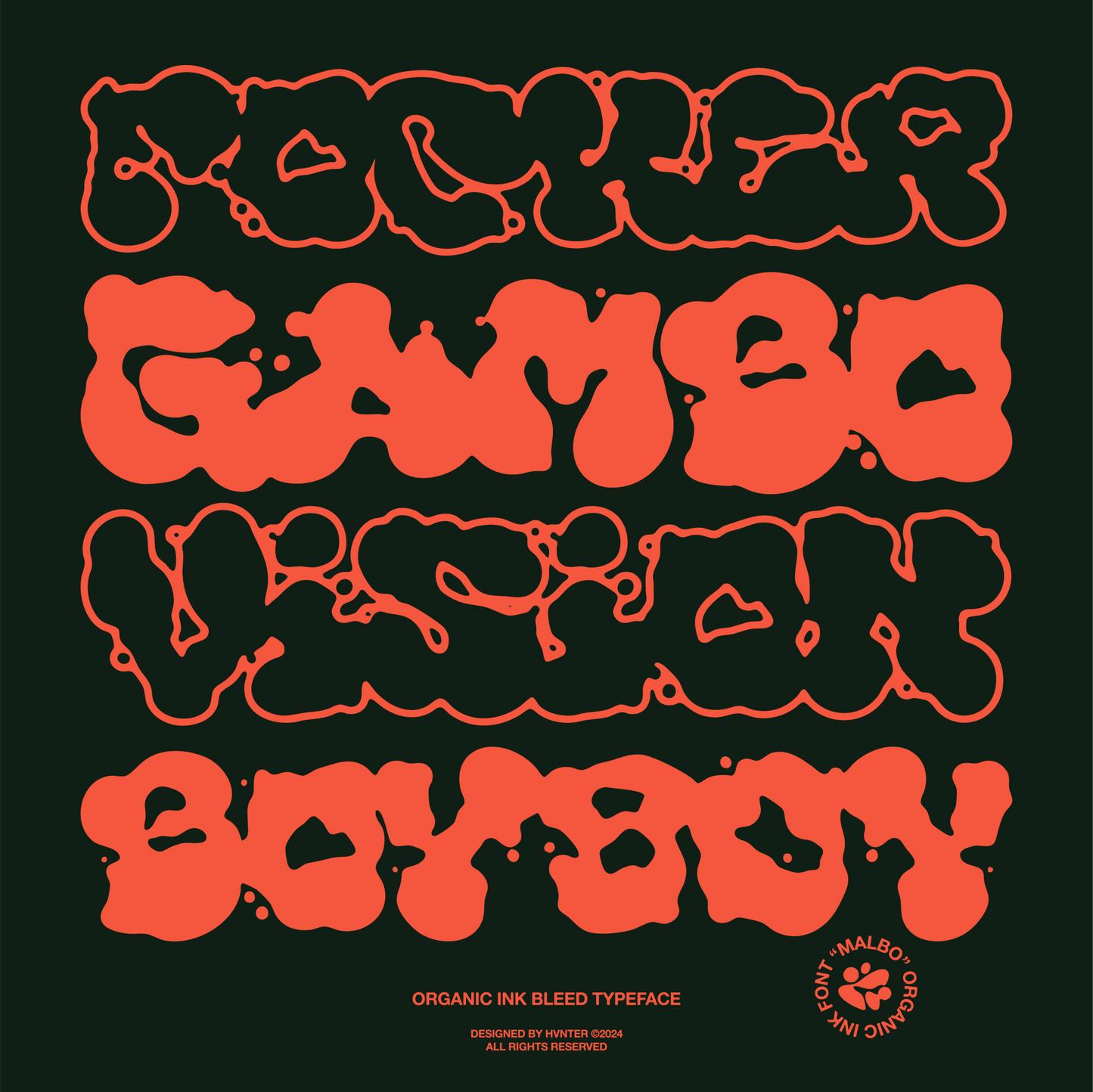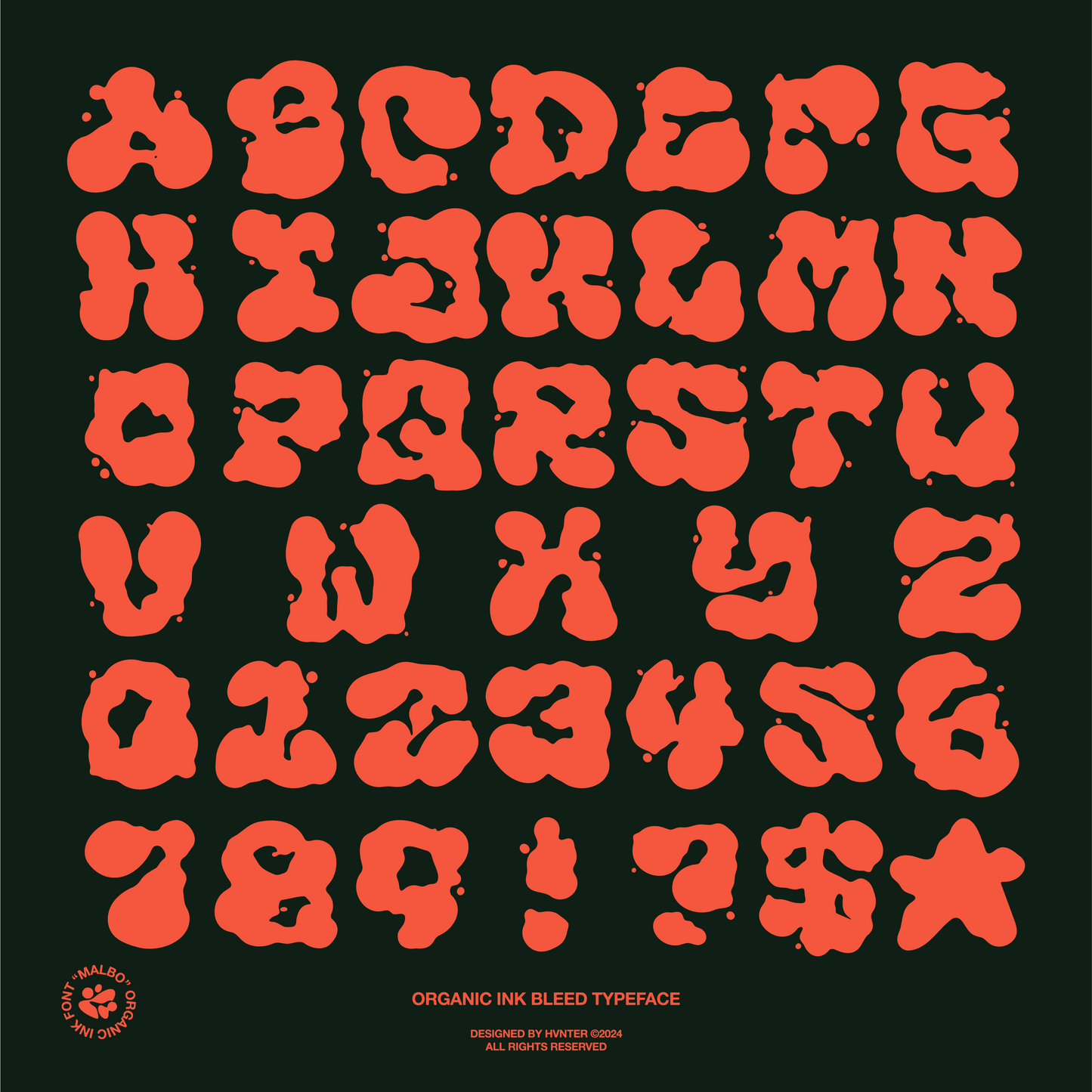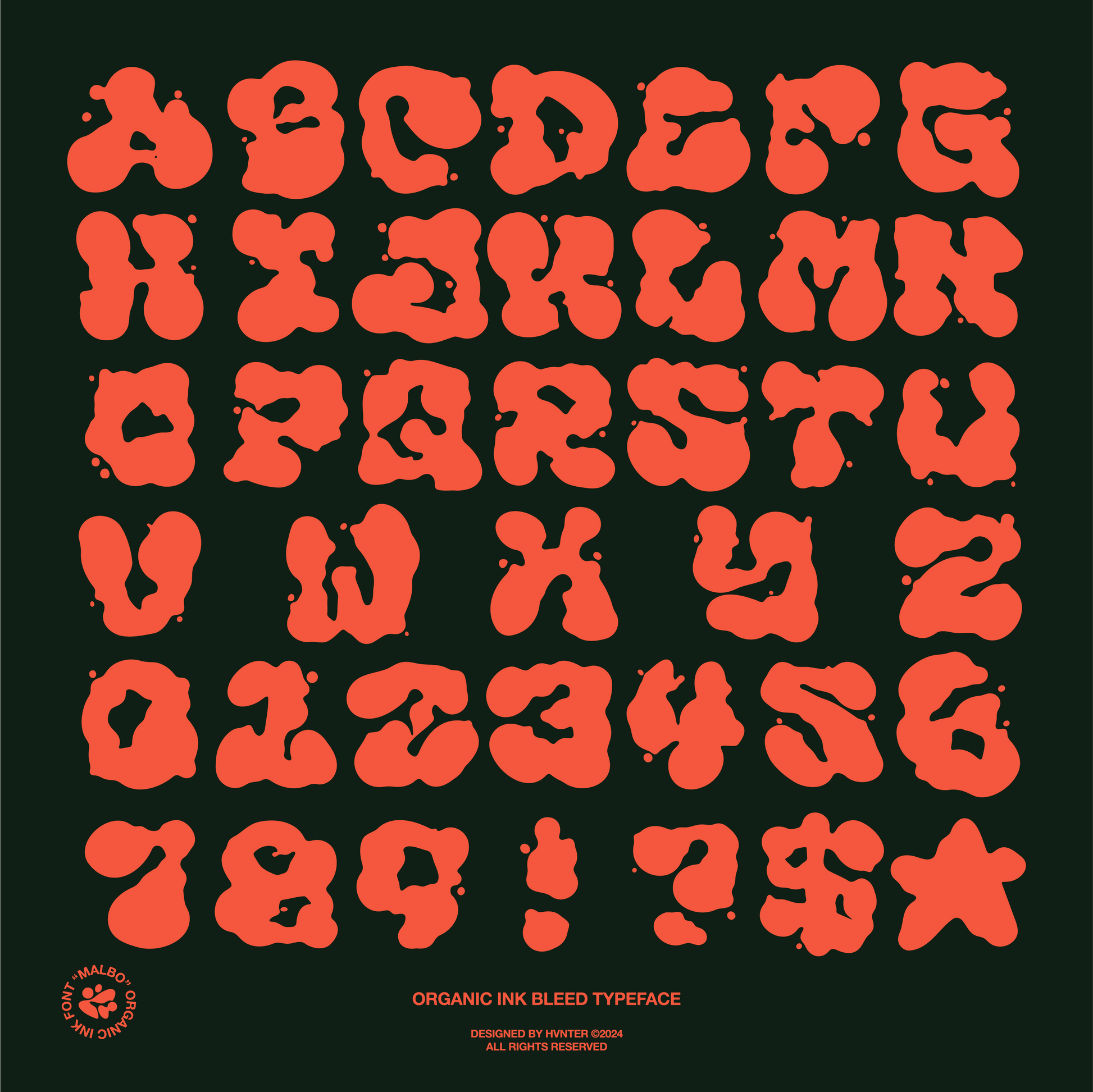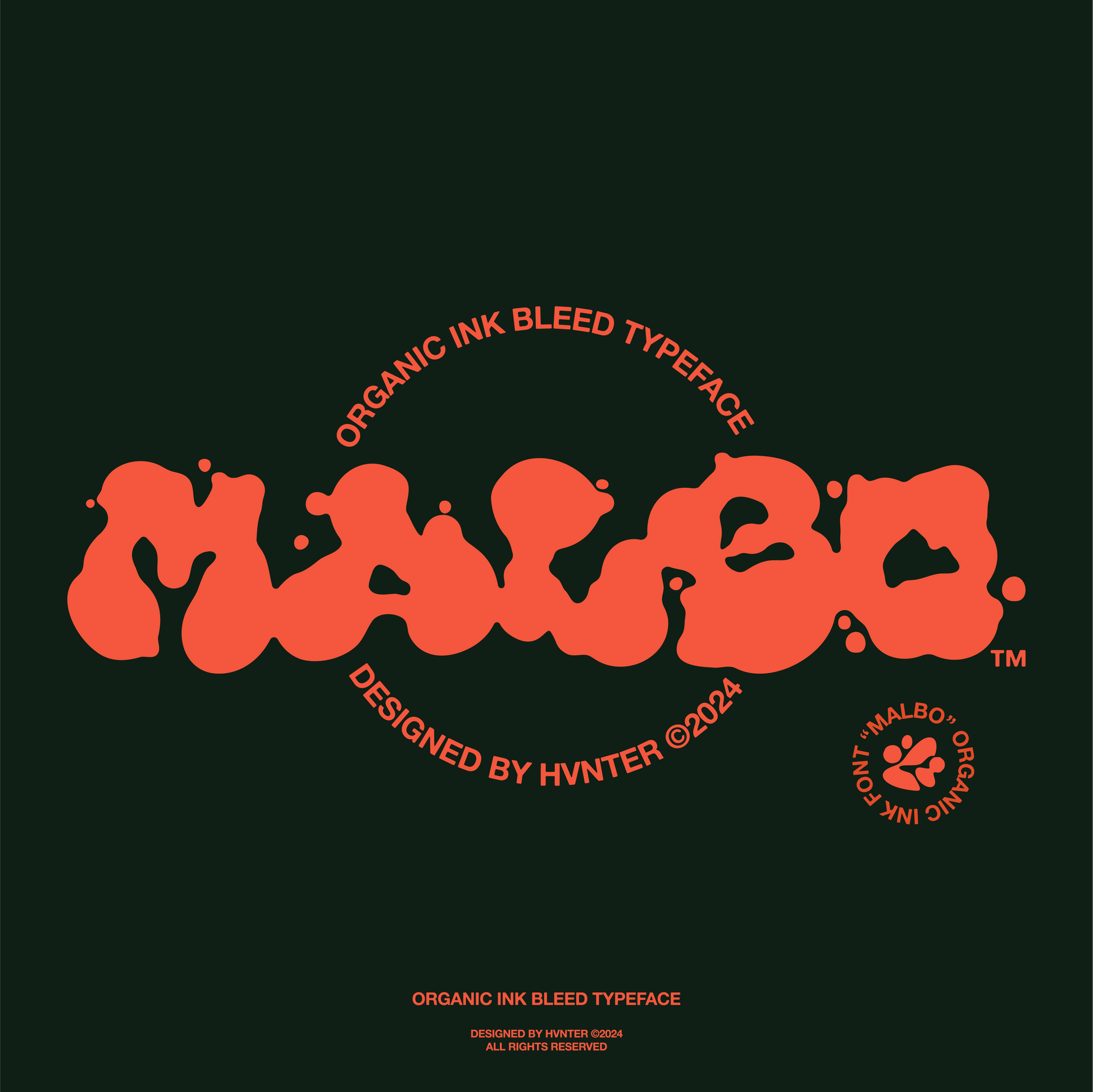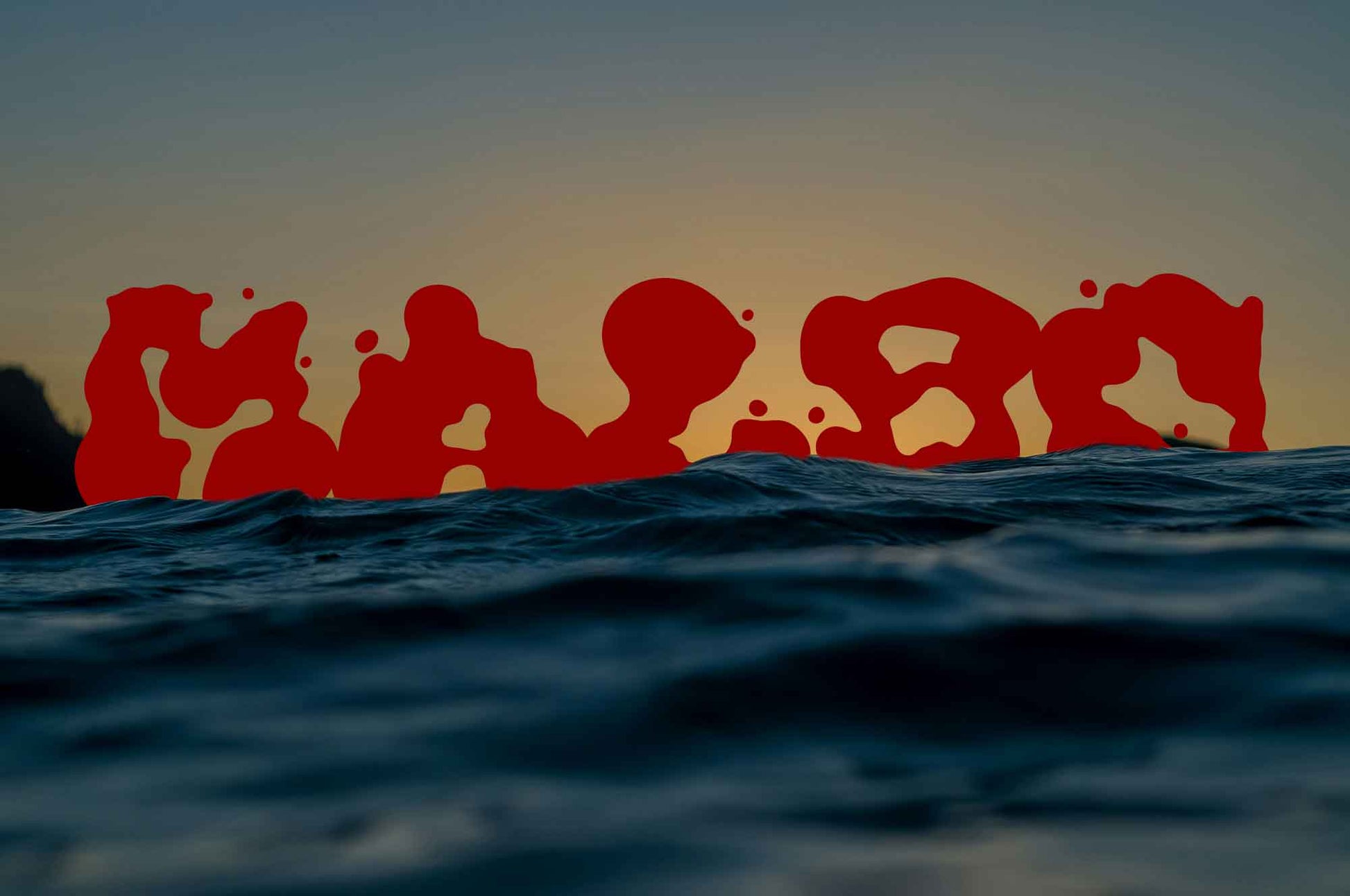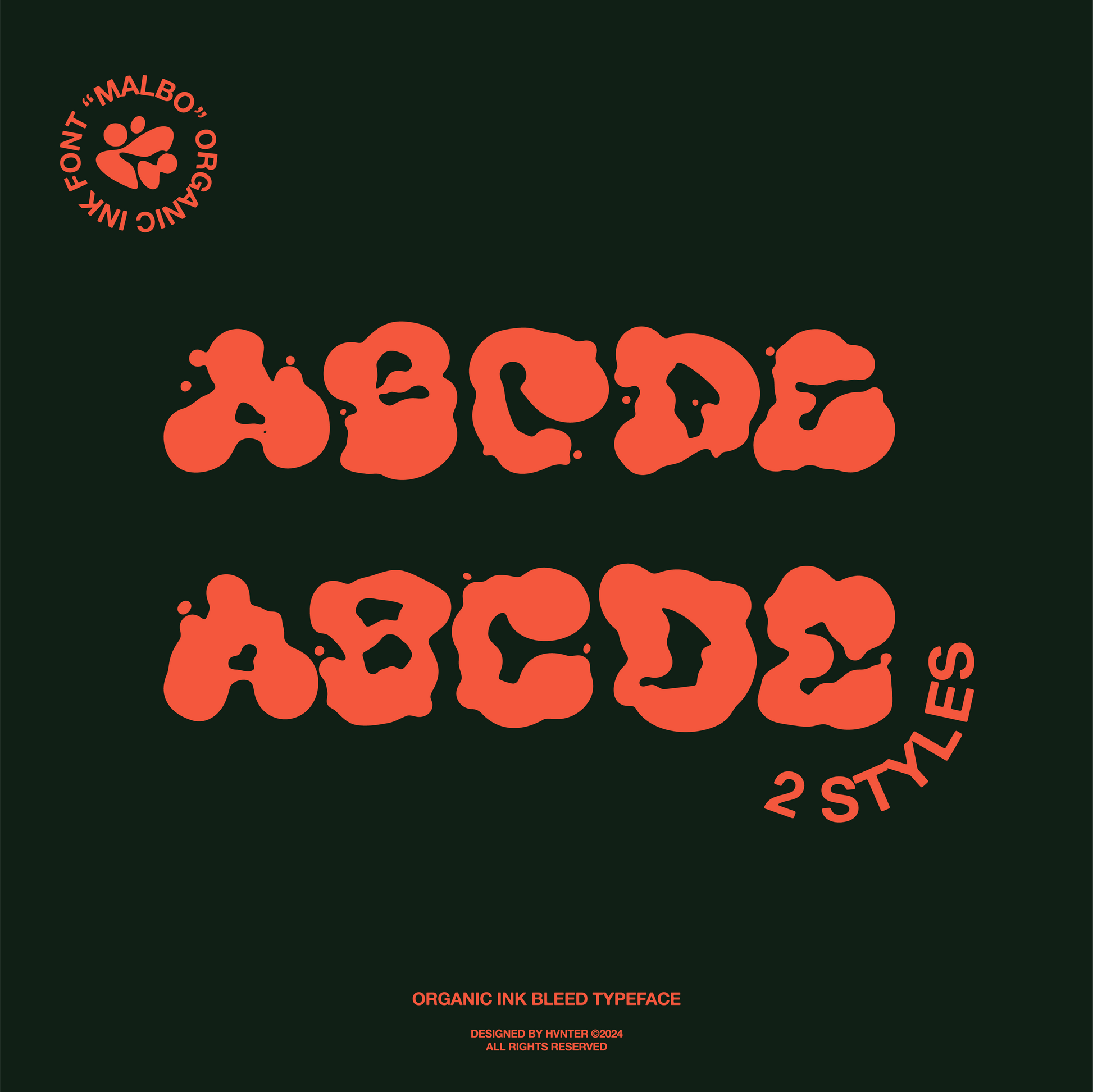
Malbo Typeface
Malbo Typeface is a raw, ooze-born font designed to look like your sketchbook got infected—and we mean that in the best way. Crafted by HVNTER, Malbo channels the chaos of ink bleeding on hot paper. The result? A drippy, hand-formed alphabet that refuses to sit still.
Perfect for posters, titles, zines, digital art, or any layout that needs to scream underground and unpolished. The typeface comes in two unruly styles, both uppercase only—with numerals and punctuation to match.
Whether you’re building out a glitchcore flyer, game title, or band merch, Malbo gives you organic distortion with built-in rebellion.
- Designed by HVNTER
- All caps A–Z, numerals 0–9, punctuation
- 2 dripping, organic styles included
Inject your message with noise. Let it melt off the screen!